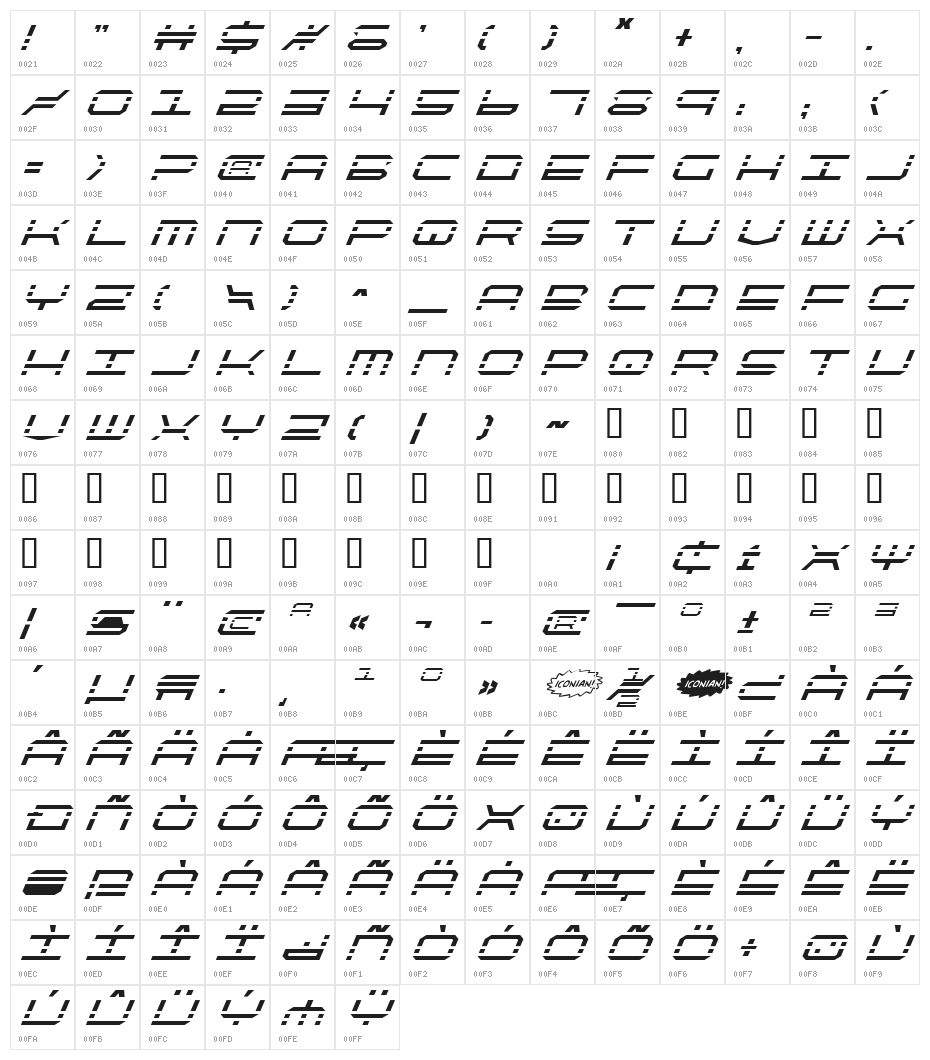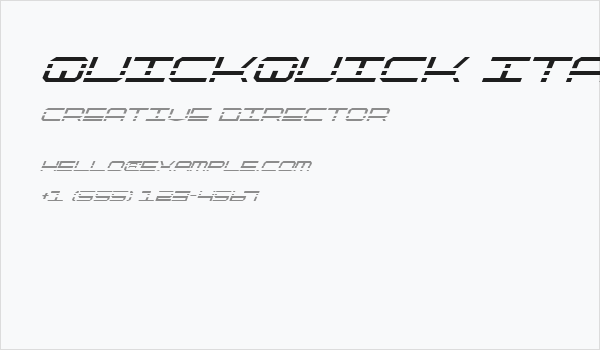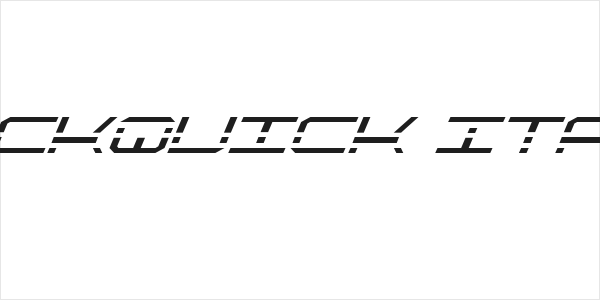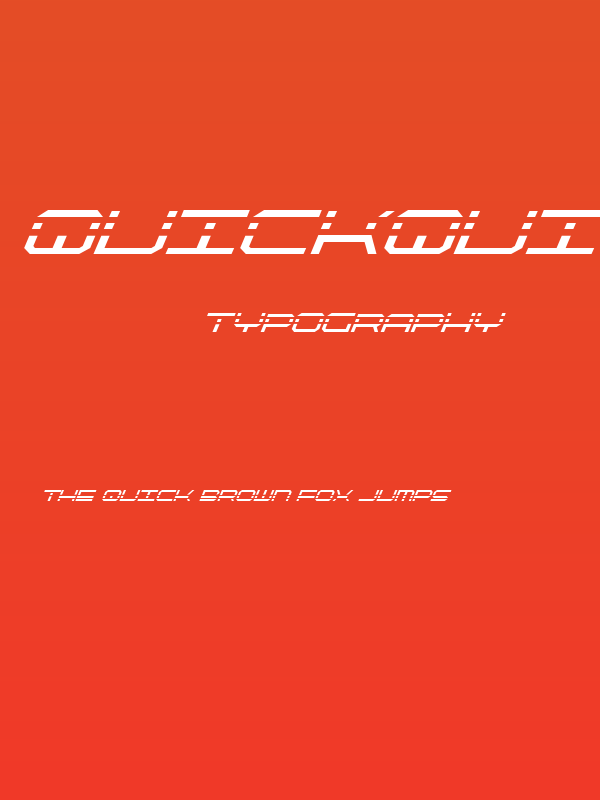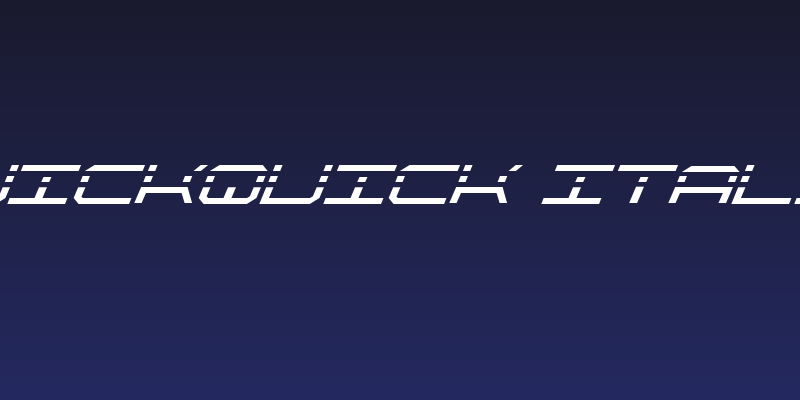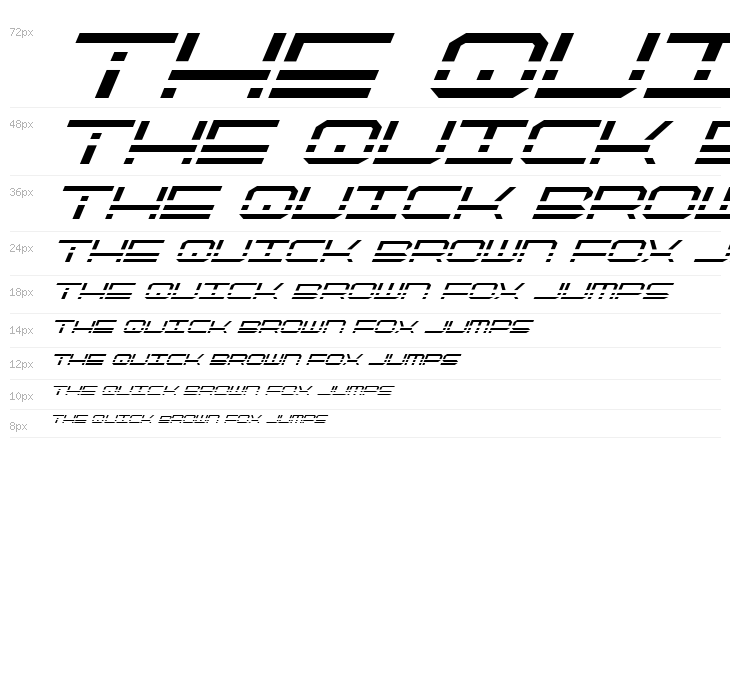
QuickQuick Italic Font
QuickQuick Italic Description
This font features a futuristic and dynamic design with a distinct italic slant. The characters are composed of segmented lines, creating a digital and high-tech appearance. Each letter and number is crafted with precision, emphasizing angular cuts and geometric shapes. The font maintains a consistent style across uppercase, lowercase, and numeric characters, with special symbols following the same design principles. Its unique structure and modern aesthetic make it stand out, suitable for projects that require a cutting-edge and innovative look.
Proposed ProjectsIdeal for technology branding, sci-fi movie posters, video game titles, and digital product packaging.